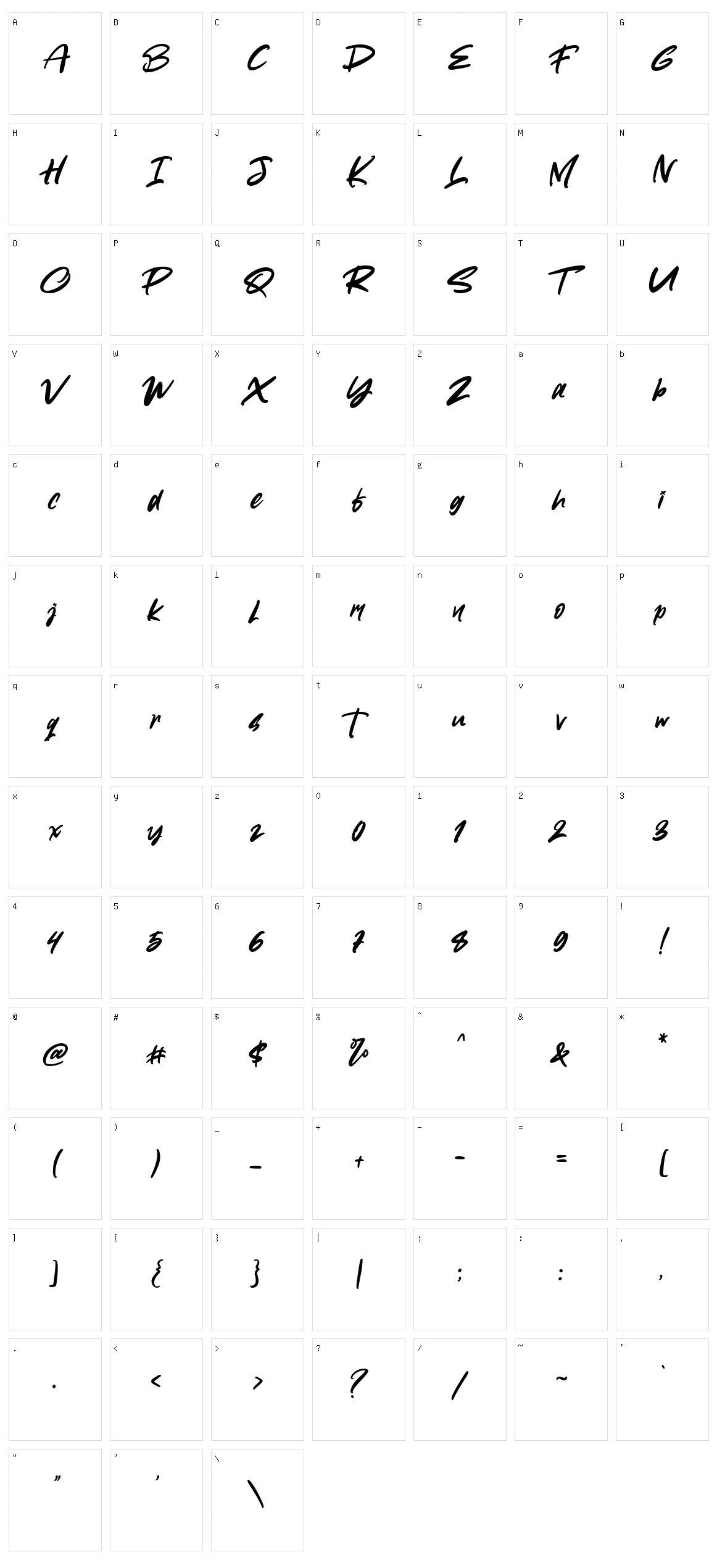
The free font Toothless is carefully designed by Weape Studio, showcasing a thoughtful balance of creativity and usability and falls under the Script font style. When you download the ZIP file, it contains only 24.79 KB of font files, making it lightweight and quick to download. Please review the license details below to understand permitted usage and distribution rights. If license information is not available, we recommend using this font for personal projects only or contacting the author directly for commercial usage permissions.
Toothless - 2019 by Weape Design